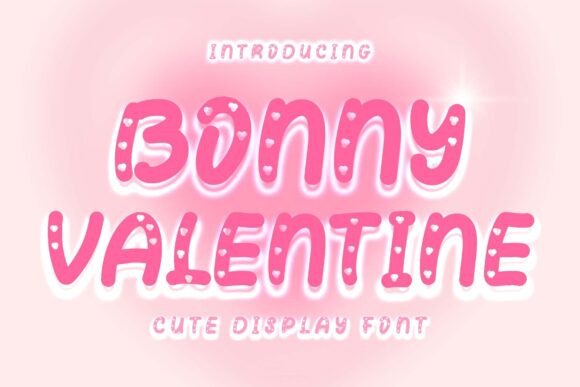
Introducing Bonny Valentine Font: The Perfect Choice for Your Valentine’s Day and Beyond
Are you looking for a font that exudes love, joy, and festivity? Look no further than the Bonny Valentine Font! This adorable display font is designed to make your designs stand out, whether it’s for Valentine’s Day, a wedding, birthday, or any other special occasion. In this article, we’ll dive into the features and benefits of the Bonny Valentine Font and explore its various uses.
What is Bonny Valentine Font?
Bonny Valentine Font is a cute and beautiful display font that is perfect for creating stunning designs. It comes with a range of characters, including uppercase and lowercase letters, numbers, punctuation, and multilingual support. This font is designed to be versatile and can be used for a variety of purposes, from digital designs to print materials.
Key Features of Bonny Valentine Font
- Uppercase and Lowercase Letters: The Bonny Valentine Font includes both uppercase and lowercase letters, allowing you to create a range of designs, from bold headings to elegant body text.
- Numbers and Punctuation: The font includes a range of numbers and punctuation marks, making it perfect for creating detailed designs.
- Multilingual Support: The Bonny Valentine Font supports multiple languages, making it a great choice for designers who work with international clients.
- Cute and Beautiful Design: The font has a unique and adorable design that is sure to capture the hearts of your audience.
Uses of Bonny Valentine Font
The Bonny Valentine Font is perfect for a variety of uses, including:
- Valentine’s Day Designs: Create stunning Valentine’s Day designs, including cards, posters, and social media graphics.
- Wedding Designs: Use the font to create beautiful wedding designs, including invitations, programs, and decorations.
- Birthday Designs: Create fun and festive birthday designs, including cards, posters, and party decorations.
- Branding: Use the Bonny Valentine Font to create a unique and memorable brand identity.
- Print Materials: The font is perfect for creating a range of print materials, including brochures, flyers, and posters.
- Digital Designs: Use the font to create stunning digital designs, including social media graphics, email newsletters, and website headers.
Benefits of Using Bonny Valentine Font
There are many benefits to using the Bonny Valentine Font, including:
- Unique and Eye-Catching Design: The font has a unique and eye-catching design that is sure to capture the hearts of your audience.
- Versatility: The font is versatile and can be used for a range of purposes, from digital designs to print materials.
- Easy to Read: The font is easy to read, making it perfect for body text and headings.
- Multilingual Support: The font supports multiple languages, making it a great choice for designers who work with international clients.
Tips for Using Bonny Valentine Font
Here are some tips for using the Bonny Valentine Font:
- Use it for Headings: The font is perfect for headings and titles, making it a great choice for creating stunning designs.
- Pair it with Other Fonts: The Bonny Valentine Font can be paired with other fonts to create a unique and eye-catching design.
- Use it for Digital Designs: The font is perfect for digital designs, including social media graphics, email newsletters, and website headers.
- Experiment with Colors: The font looks great in a range of colors, so don’t be afraid to experiment and find the perfect color for your design.
The Bonny Valentine Font is a cute and beautiful display font that is perfect for creating stunning designs. With its range of characters, multilingual support, and versatility, it’s a great choice for designers who want to create unique and eye-catching designs. Whether you’re designing for Valentine’s Day, a wedding, birthday, or any other special occasion, the Bonny Valentine Font is sure to impress.